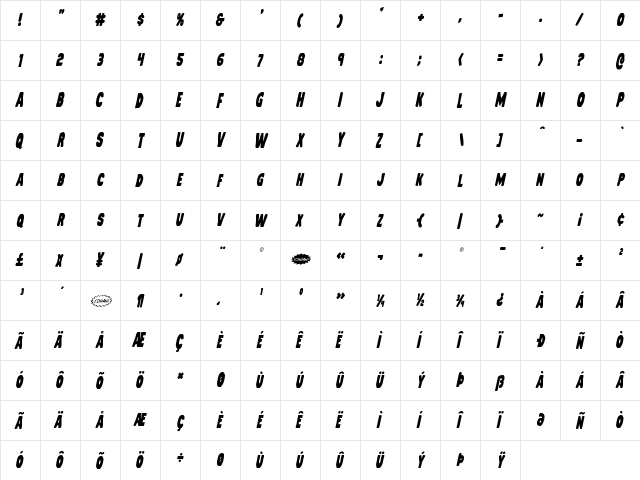
Mystery Mobile Condensed Italic Font Preview
Design Context for Mystery Mobile Condensed Italic Typeface
Mystery Mobile Condensed Italic offers clean, dependable letterforms without strong stylistic allegiance, making it a practical choice for designers who need flexibility. Its italic angle brings a sense of urgency and motion to the letterforms. The condensed width makes it efficient for tight spaces without sacrificing legibility.
Pro Tip: Use Mystery Mobile Condensed Italic for emphasis, pull quotes, and subheadings where its slanted energy can add rhythm to the layout.